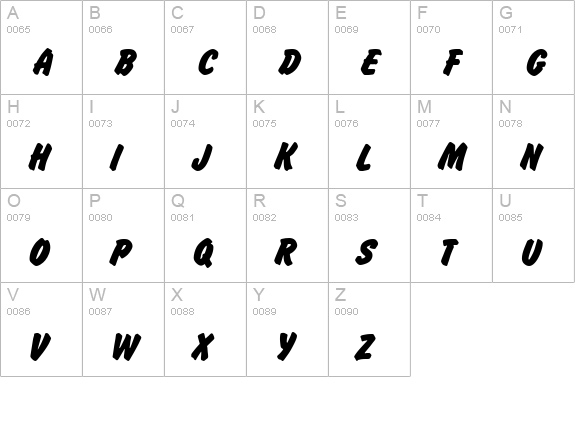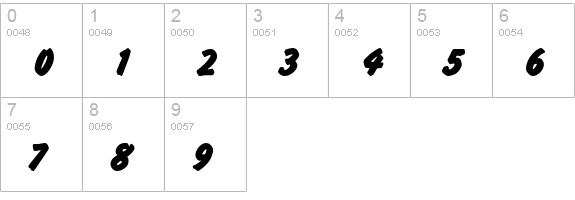
Falcon-Poster-Bold is a strong, high-contrast variant in the Falcon typeface family \xE2\x80\x94 well suited to headlines, attention-grabbing titles, and strong calls-to-action.
Falcon-Poster-Bold is a striking and modern typeface that commands attention with its bold and powerful presence. Perfect for making a statement in posters, banners, and headlines, this font exudes confidence and strength. Its sharp lines and distinct letterforms ensure maximum impact, while its sleek design adds a touch of sophistication to any project. What makes Falcon-Poster-Bold even more appealing is that it is available for free download at FontsMarket.com. That's right, you can add this impressive font to your collection without spending a dime. Whether you're working on a professional design project or simply looking to elevate your personal creations, Falcon-Poster-Bold is a versatile and eye-catching font that will not disappoint. Download it today and unleash its bold potential in your next design endeavor.